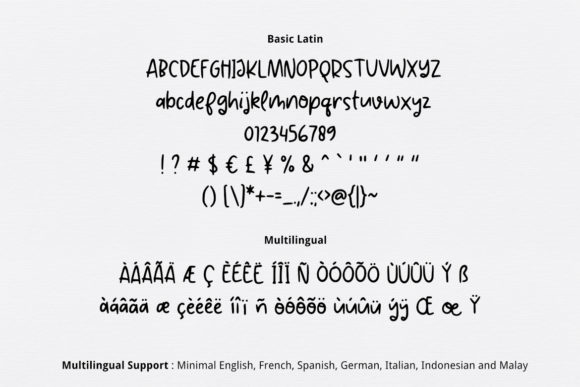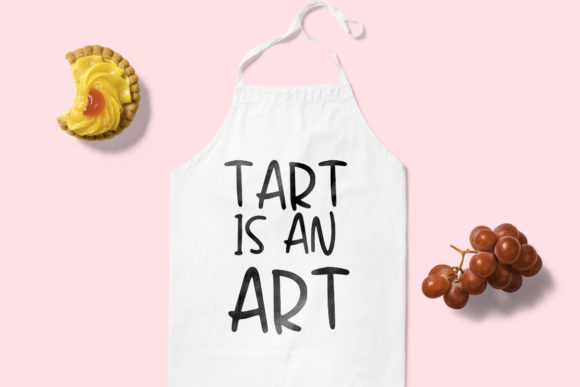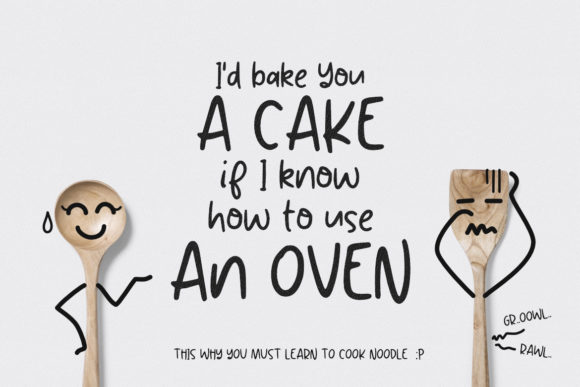
Introduction to Jelly Cream Font
Do you remember that moment when a single design element sparks an entire creative project? For me, it was stumbling upon the Jelly Cream Font. Its playful, whimsical style instantly captured my attention, and I knew I had to learn more about this charming script.
The Jelly Cream Font is a treasure trove of design inspiration, perfect for those seeking a unique touch for their next creative project. With its high-quality design and transparent background, it’s a valuable resource for designers looking to elevate their work. Whether you’re working on a branding project, a digital graphic, or a print design, this font is sure to bring a smile to your audience’s faces.
Key Features of Jelly Cream Font
- High-quality, hand-drawn design perfect for creative projects, available for free download.
- Unique, whimsical style with a mix of smooth and rough textures, adding a touch of personality to any design project.
- Perfect for use in graphic design, digital art, and creative projects, such as logos, posters, and branding materials.
Honest Review: Jelly Cream Font
I recently stumbled upon the Jelly Cream Font while searching for free download resources to enhance my design projects. As a designer, I’m always on the lookout for high-quality fonts that can elevate my creative work.
The Jelly Cream Font did not disappoint. Here’s what works well:
- Unique and playful design that’s perfect for branding and marketing materials ✨
- Transparent background, making it easy to layer over other design elements ✨
- High-quality vector format, ensuring crisp and clear text ✨
- Limited character set, which may be a concern for those who need to use the font for extensive text-based projects ⚠️
- Not all weights are available in the free version, which can be frustrating for designers who want to experiment with different styles ⚠️
Overall, I’m impressed with the Jelly Cream Font. It’s a great addition to any design resource collection, and its unique design makes it perfect for creative projects. If you’re looking for a free font that’s both stylish and versatile, I’d definitely recommend giving the Jelly Cream Font a try.
The Jelly Cream Font is suitable for various creative projects, such as food blogs, dessert shops, or restaurants. It’s also great for creating invitations, menus, or other promotional materials.